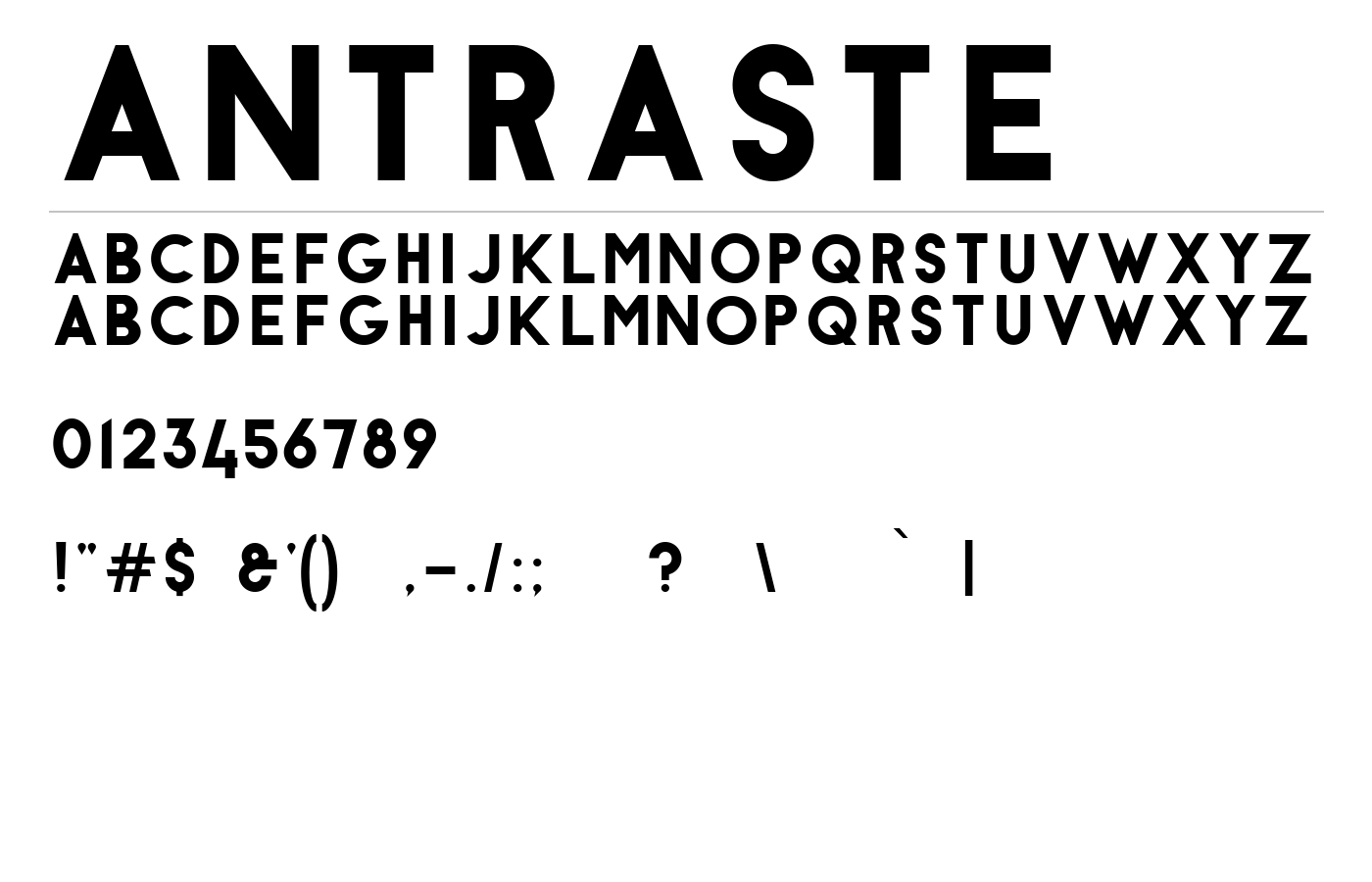
Antraste is a bold, geometric sans serif font with a clean and modern appearance. Its sturdy letterforms and slightly condensed width create a strong, impactful presence, making it ideal for headlines, logos, and branding that require clear readability and a contemporary feel. The font’s balanced spacing and distinct shapes communicate confidence and professionalism, perfect for editorial design, advertising, and digital use.
Antraste Font
About Antraste Font